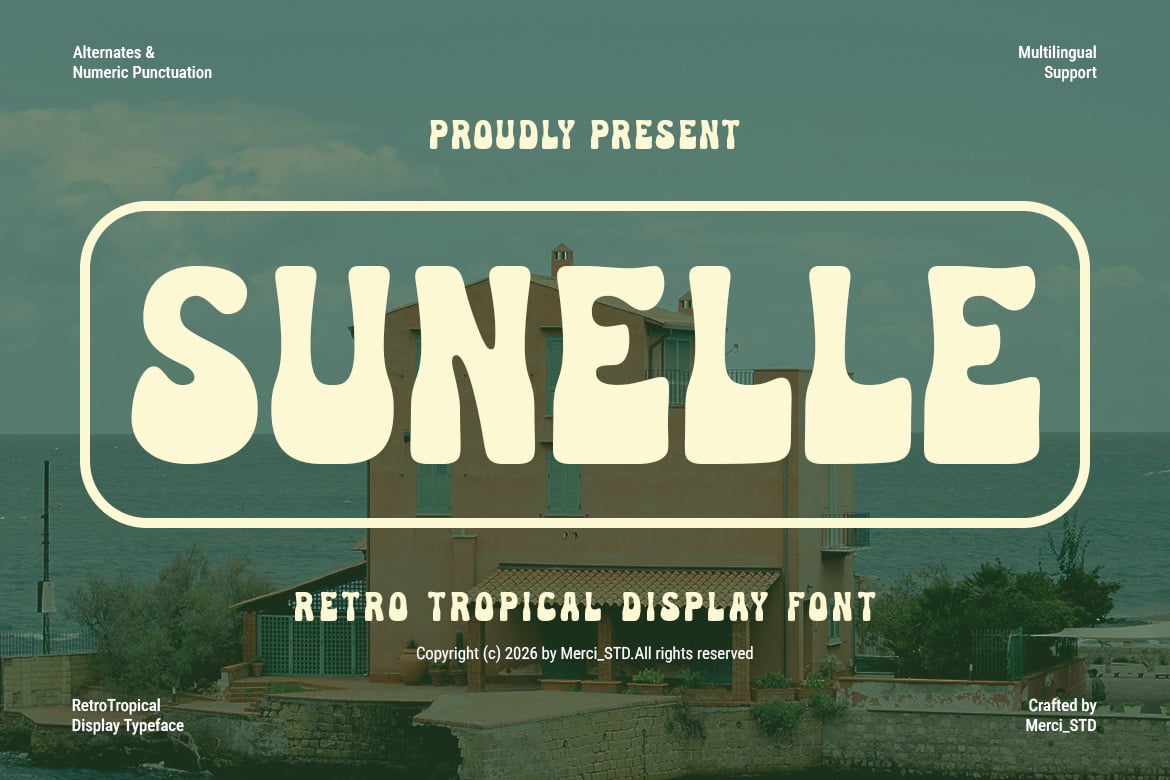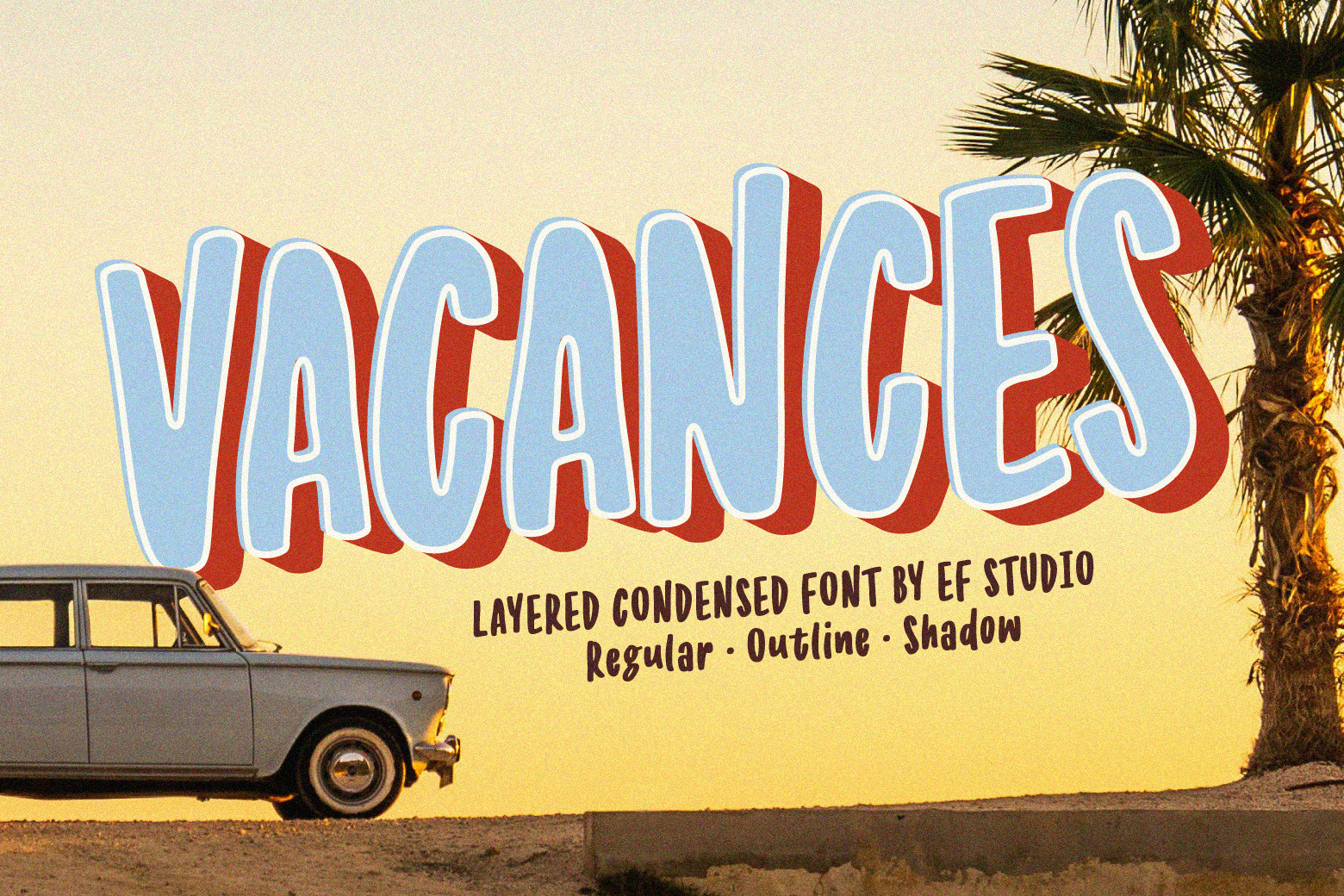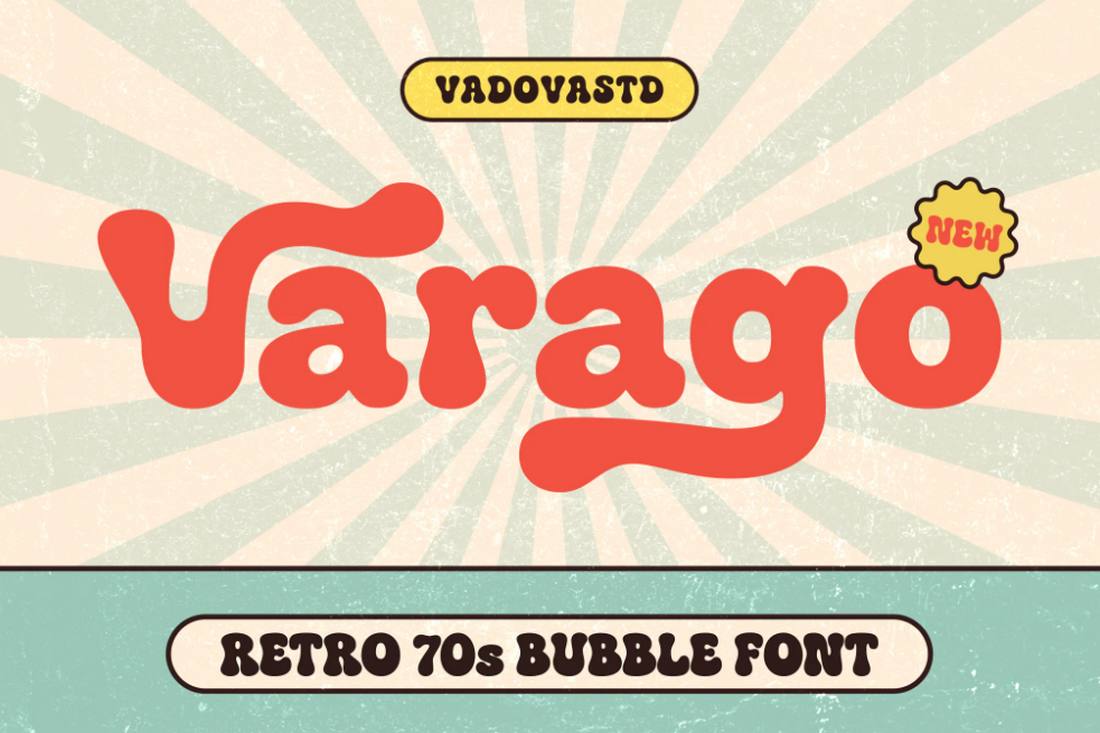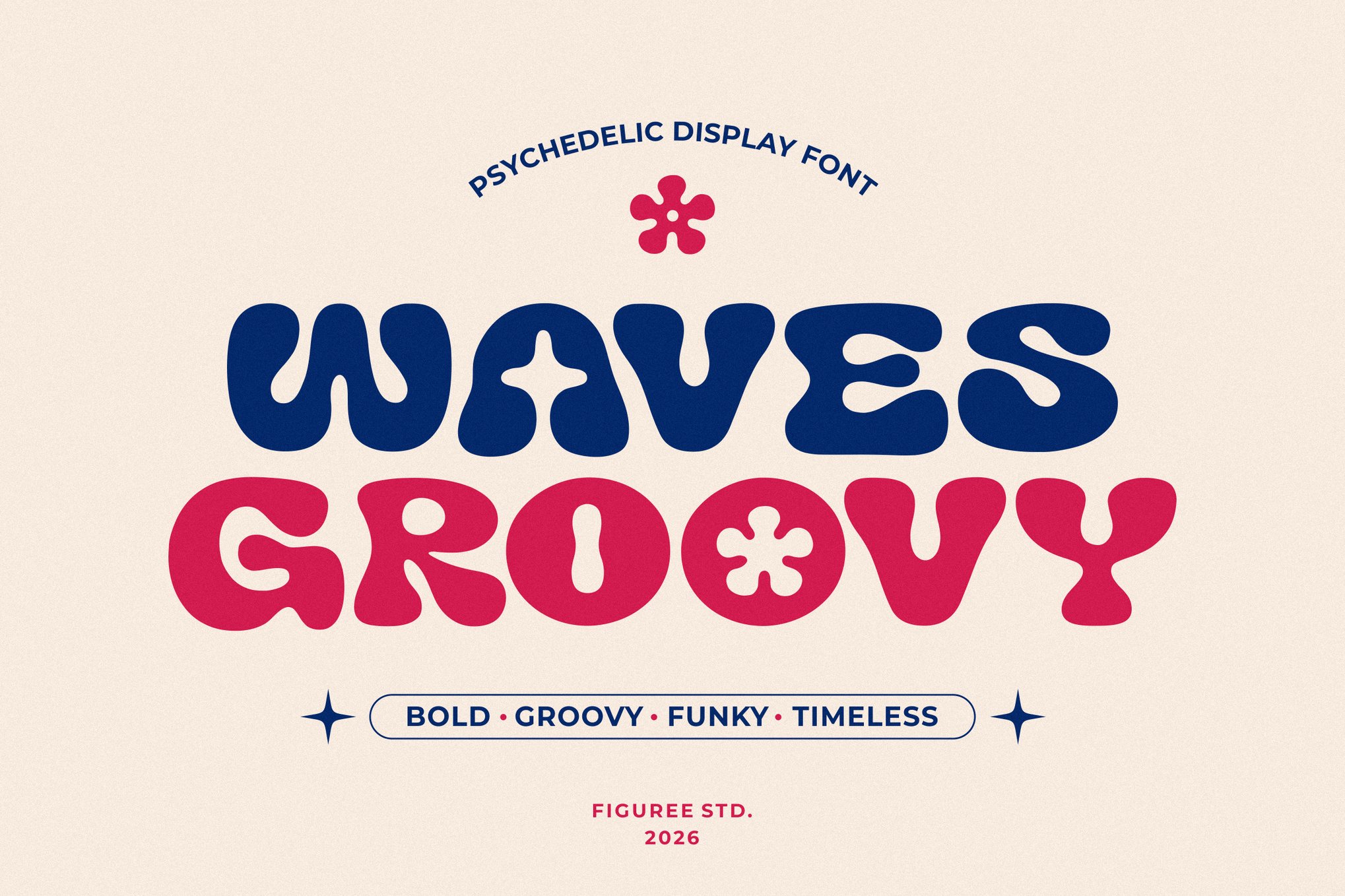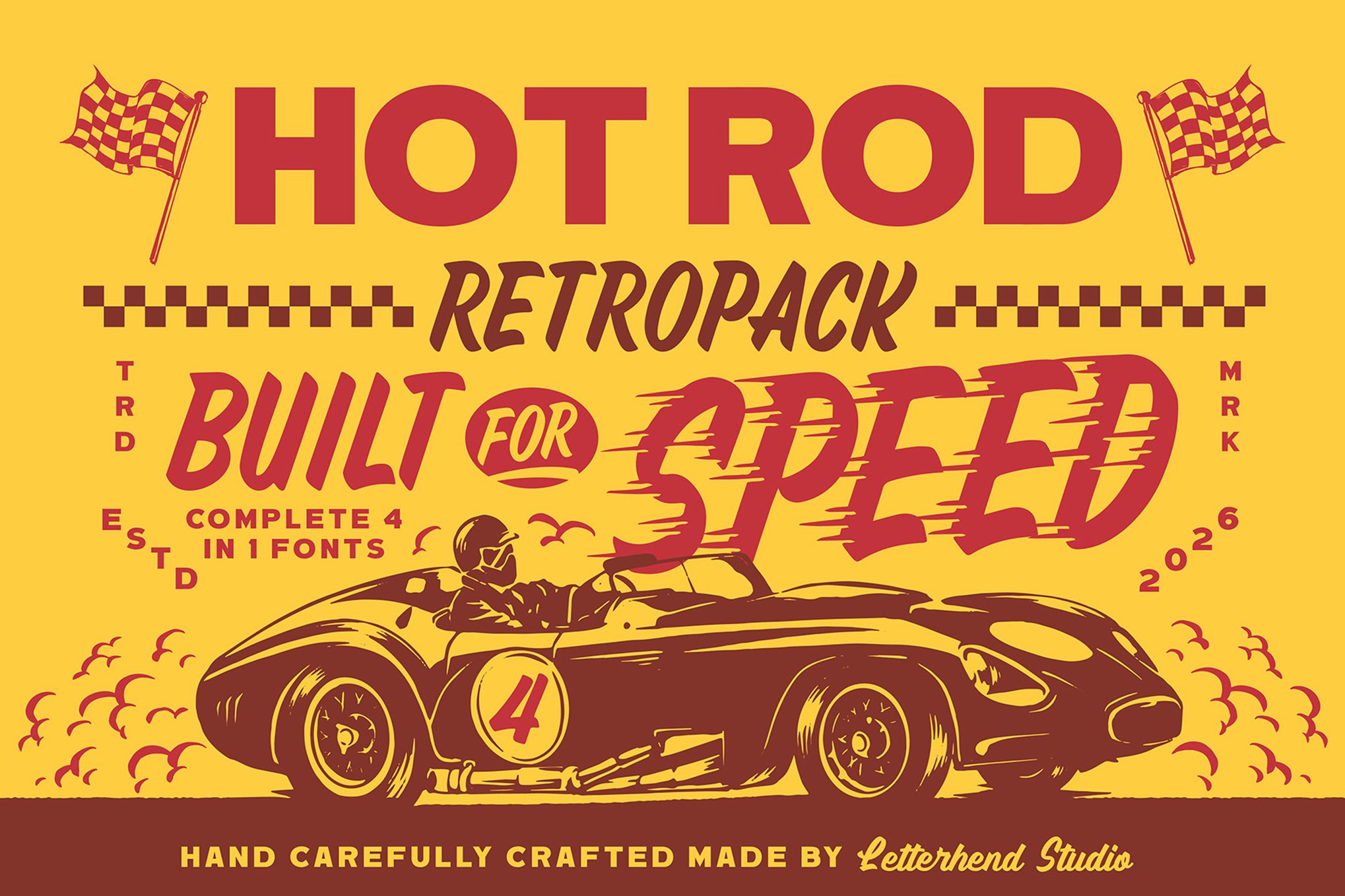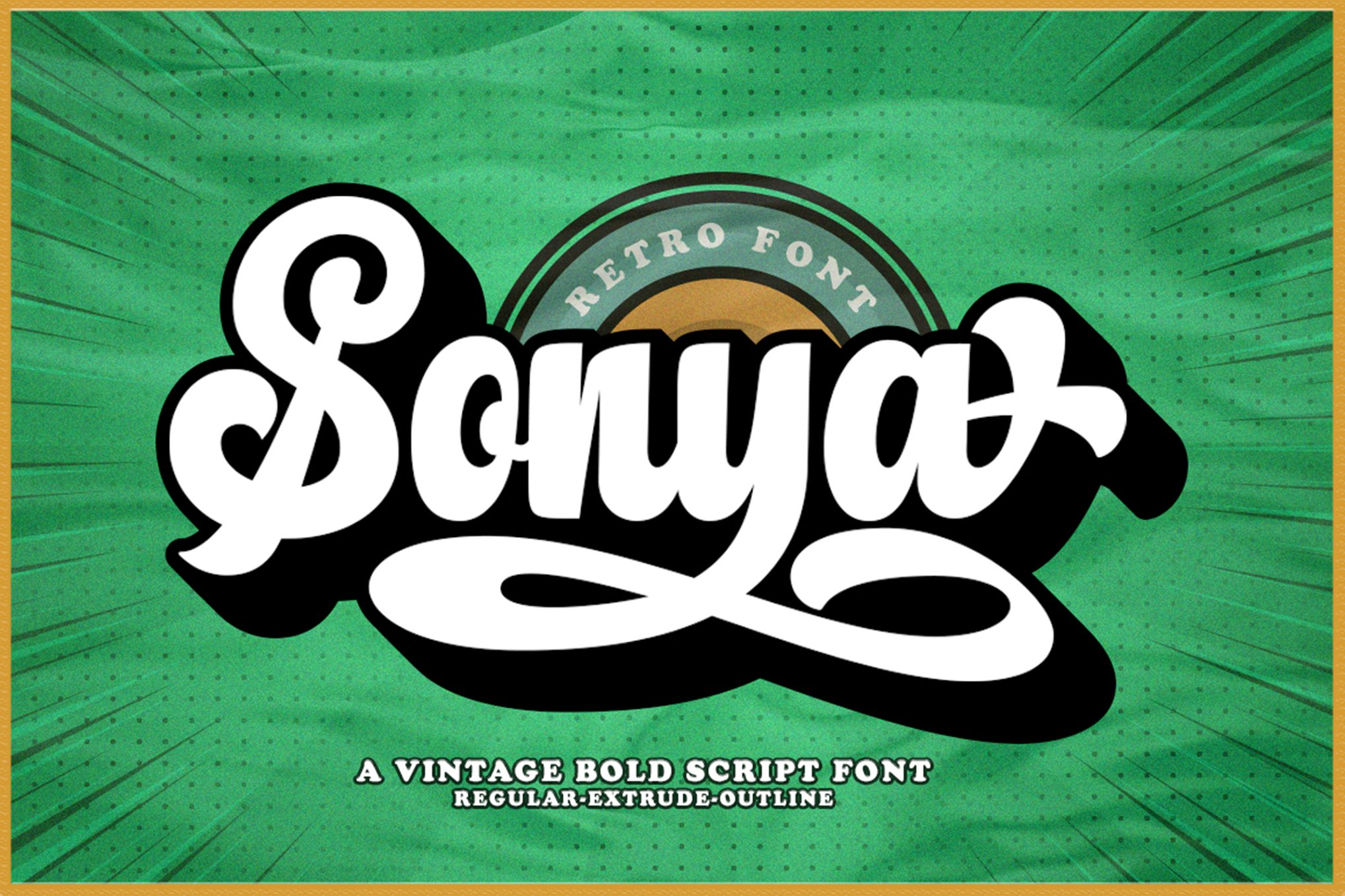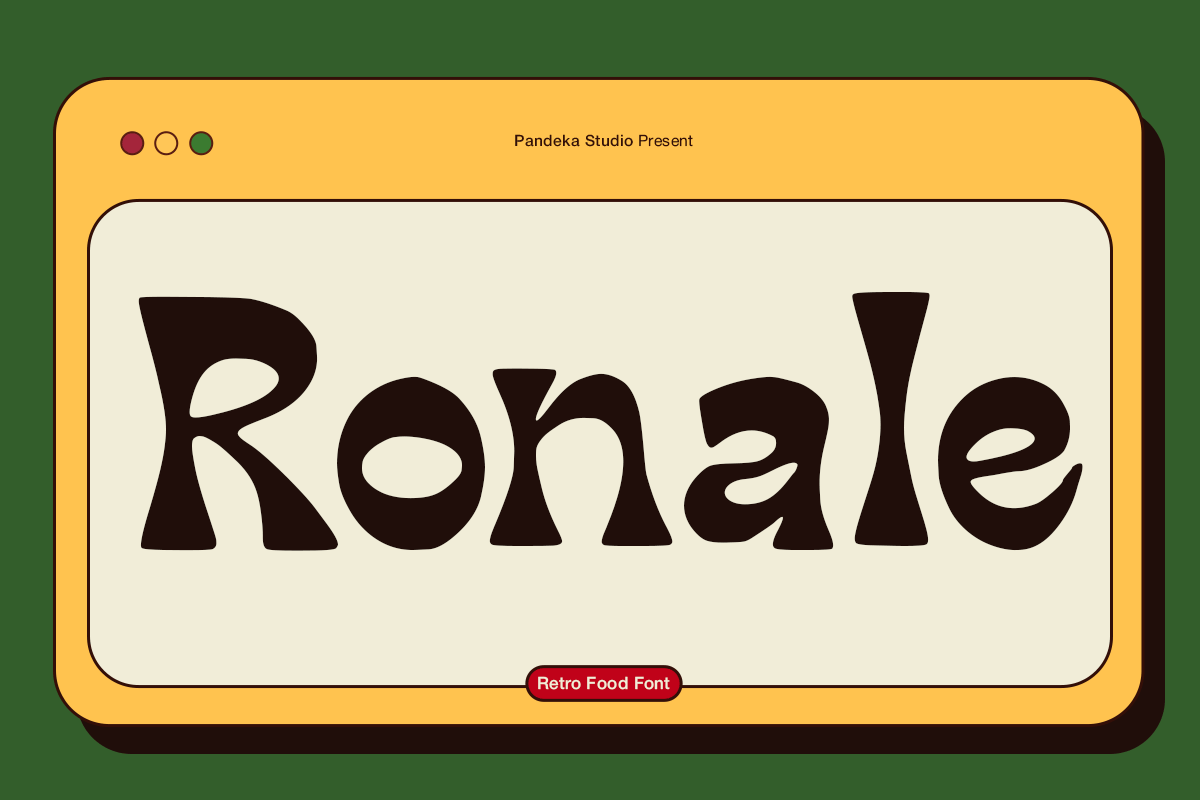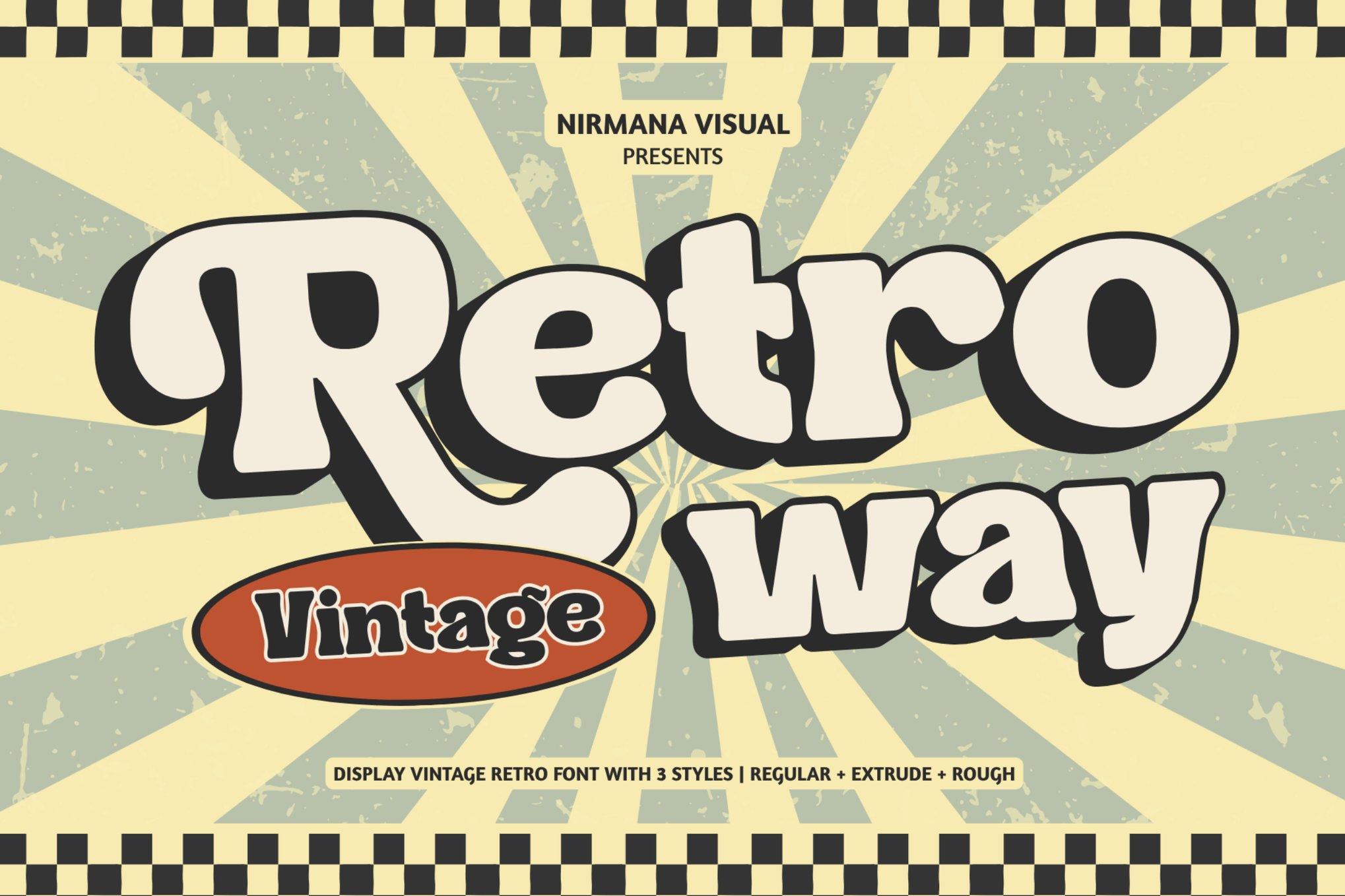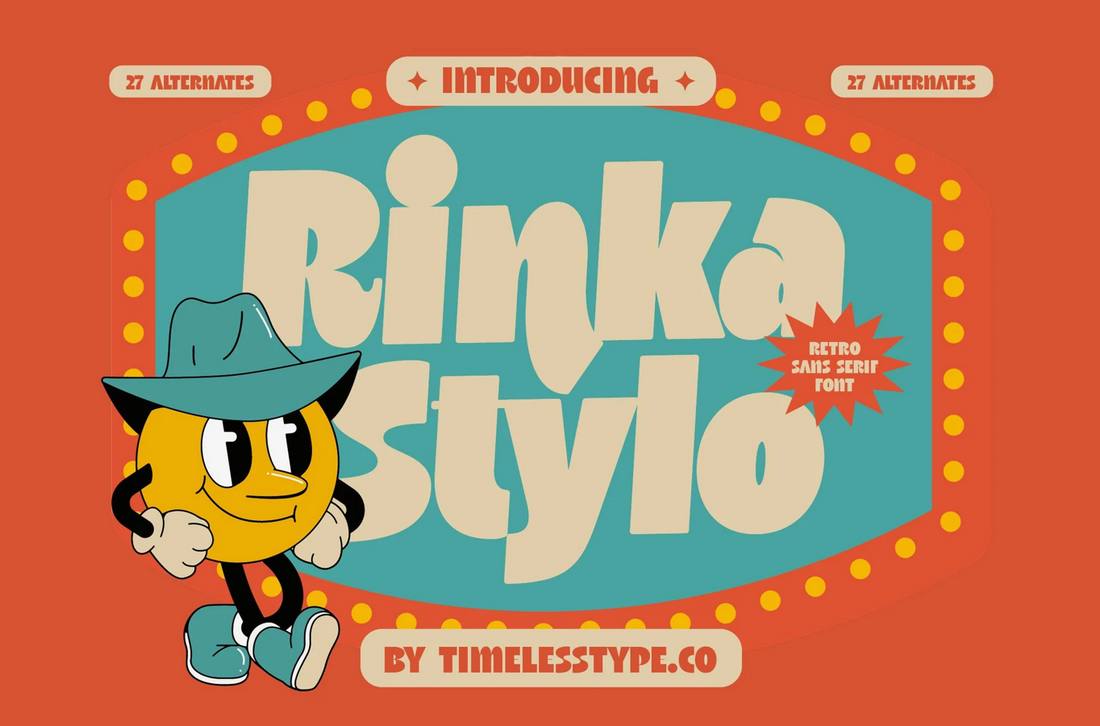
35 Grooviest Retro 80’s Fonts (Classic Retro 80’s Typography)
There’s nothing better than a cool retro font to take you back in time to the 1980s when even the typography looked so cool and groovy.
Today, we take you down that same memory lane filled with nostalgia with our collection of groovy 80s fonts.
Needless to say, an awesome-looking 80s font will fit in with almost any type of design. Whether it’s a logo design for an agency, a custom T-shirt for a creative brand, or even posters for a movie, you can never go wrong with using a retro font.
So be sure to download all these fonts and guard them as your most precious treasure as a designer. Of course, there are a few free 80s fonts in the collection too.
Sunelle – Retro Tropical 80s Font
Sunelle is a vibrant retro tropical font capturing the essence of sun-kissed 80s summers. Ideal for posters, travel promotions, and beach-themed projects, it infuses designs with bold, nostalgic charm. Featuring uppercase letters, numbers, punctuation, and unique ligatures, Sunelle comes in ttf, otf, woff, and woff2 formats.
Vacances – Retro Layered Condensed Font
Vacances is a vibrant retro font inspired by vintage travel posters and seaside signage, perfect for adding a nostalgic flair to your projects. Its unique 3-layer system—Regular, Outline, and Shadow—allows for creative color combinations and eye-catching designs. Ideal for high-impact layouts, Vacances combines rustic charm with sleek professionalism in a condensed, space-saving silhouette.
Varago – Retro 70’s Bubble Font
Varago is a captivating retro 70s bubble font that adds a playful, nostalgic touch to any project. Perfect for posters, logos, or social media graphics, its bold curves and vibrant style transport you back to the groovy era of disco and bell-bottoms. You can elevate your design with Varago’s unique flair, making it an ideal choice for adding character and charm.
Groovy Waves – Psychedelic Retro Font
Groovy Waves brings vibrant 80s energy to your design projects. Its wave-shaped, all-caps design and vintage psychedelic vibes offer eye-catching movement and character. Ideal for posters, album covers, and retro-themed branding, it supports multiple languages and works seamlessly across digital and print formats, enhancing creative displays with its bold, expressive lettering.
Hotrod – Classic 80s Font
Hotrod is a vibrant retro display collection inspired by vintage racing posters and garage signage. Boasting bold strokes and dynamic angles, it evokes the energetic spirit of mid-century automotive culture. Ideal for headlines and large layouts, this font offers versatile styles, multilingual support, and special features like alternates and ligatures.
Sonya – Retro 80s Script Font
Sonya offers a unique, carefully crafted vintage style perfect for logos, titles, and more. With an extruded version and various OpenType features like Stylistic Alternate and Ligature. Compatible with Adobe software and Microsoft Word, Sonya also provides multilingual support for broader accessibility.
Ronale – Retro Food Font
Ronale is a bold, playful retro-style font inspired by vintage diner typography, perfect for adding a nostalgic touch to food branding, cafe logos, and retro-themed projects. Its curvy forms evoke classic restaurant signage warmth, offering a full character set in Regular style. Ronale’s easy-to-use format is compatible with popular design software, making it ideal for creative adventures.
Retro Way – Vintage Logo Font
Retro Way captures the vibrant spirit of the 80s with its retro style, perfect for a range of design projects like logos, branding, social media posts, and more. This creative asset includes two versatile font styles, Regular and Rough, plus an Extrude option, available in OTF, TTF, and WOFF formats.
Rinka Stylo – Retro Sans Serif Font
Rinka Stylo is a charming retro sans serif font that captures the playful spirit of the 80s. It’s perfect for adding a nostalgic touch to your designs, from posters to logos and everything in between. With its clean lines and vintage flair, Rinka Stylo brings a fun and bold aesthetic to your creative projects.
Stacker – Groovy Retro Font
Stacker is a vibrant retro font that brings 80s groove to your designs. Its rounded geometric forms and smooth curves create a friendly, engaging tone, perfect for Instagram layouts, branding, and digital campaigns. With excellent readability and cheerful letter shapes, it elevates headlines and promotional graphics.
Naskle – Groovy Retro 80s Font
This is the perfect font to capture the essence of the 80s. It has the same groovy psychedelic-style typography that was seen all-around back in the day. You would see this type of font in posters, banners, and even on the sides of VW vans. If you want to create that same iconic 80s look in your designs, this font is made for the job.
Ramdone – Retro 80s Script Font
Even though this retro font has a very popular design style used in the 80s, the font comes with some modern OpenType elements such as swashes, alternate characters, and much more. With this font, you can design unique retro-style labels for drink bottles, design posters, craft logos for brands, and everything in between.
Neoncity – Signature Retro Neon Font
When talking about the 80s, we can’t forget about the bright neon signs. The colorful neon designs from the late 80s managed to survive all the way through the 90s and we can see them even today. With this cool font, you can create beautiful typography with the same neon sign look and feel. It comes in both script and regular styles of fonts.
Sojourn – 1980s Retro Serif Font
Sojourn is a serif font that comes with a classic retro design inspired by the typography from the 1980s. You can use the font to give a modern-vintage look to your marketing materials such as posters, flyers, social media posts, and more.
Retrips – Bold Retro 80s Font
Retrips is a classic retro font that mixes a few vintage typography design elements to create a unique look. It’s simply made for designing retro-style product labels and packaging designs. But it’s suitable for many other styles of branding designs as well. The font comes bundled with lots of ligatures and alternate characters too.
Fenway – 80s Retro Logo Font
Fenway is a bold retro font that’s inspired by the luxury and rich culture of the 80s. It has an elegant design that will fit in nicely with classic brands that promote high-end products, especially for crafting logos. The clean script design of the characters is quite exceptional as well. The font also includes ligatures and Web Font versions.
Senalita – Free 80s Retro Font
Senalita is a beautiful geometric font with a retro letter design. It may be hard to believe, but this font is actually free to use. You can use it with your personal projects as well as client commercial projects, at no charge.
Rahovets – Free Retro 80s Font
If you want to mix things up with some groovy retro typography in your designs, save this font to your collection. It comes with a wild letter design with thick and wide characters. You can also use it for free for personal and commercial projects.
Mintage – Modern Retro Font
This retro font features a stylish and modern design that makes it a great choice for crafting branding designs for various types of businesses. It comes with letters that feature curvy tails and swashes. The font fits in nicely with fashion and apparel brands. And it includes loads of alternate characters and ligatures to choose from.
Shinelof – Psychedelic Retro 80s Font
This font seems to perfectly capture the era of psychedelic experimentations of the 80s. It features a wild letter design that actually fits in well with many different types of branding designs. The font includes both uppercase and lowercase letters along with 20 types of ligatures and over 40 alternate characters.
Midway – 80s Style Retro Script Font
Midway is a beautiful retro script font that features the same groovy and thick letter designs you’ve seen in classic 80s signage and billboards. It’s perfect for creating labels, badges, and logos for various brands. The font comes in regular and extrude styles. And it features all-caps letters with over 300 glyphs and 80 alternate characters.
The Bayland – Retro-Vintage Font
Another bold and creative retro font that shares elements from vintage designs. This font will work best for crafting product labels that represent both retro and vintage eras. This font also includes both regular and extrude versions, that can be used to create amazing logos and badges when combined.
Gading Retro – 80s Cursive Font
This retro 80s font features a stylish cursive letter design. It comes loaded with plenty of glyphs, ligatures, and alternates. The font is perfect for everything from logo design to labels, banners, T-shirts, and various other branding designs.
Palm Tree – Free Retro 80s Font
This bold and beautiful retro 80s font is also free to download. It comes with an elegant letter design that fits in well with almost any type of retro-themed design. You can use it for free with personal projects.
Quechely – Free Retro Vintage Font
This free retro font takes inspiration from the vintage label and signage designs to create a classic look for its letters. The font comes in regular, outline, and shadow styles. It’s free to use with personal projects.
Retrolight – Retro 80s Neon Font
With this font, you can create titles, headings, and typography with glowing neon lights. It features the same style of typography design you’d see in movies from the 80s. And the font includes lots of glyphs for you to experiment with unique styles of designs as well.
Retro 80s Signature Font
This font also features a retro neon-style design but it combines the style with a signature letter design. The font has a beautifully flowing design that will look amazing for business cards, letterheads, and many other personal branding designs. The font comes with a few unique ligatures as well.
Bald Mont – Retro 80s Cursive Font
This is a beautiful cursive font with a groovy retro design. It has bold letters with a creative design, unlike most other retro fonts. This makes it a great choice for designing logos and badges for various brands. It’s suitable for product packaging, labels, posters, and flyer designs as well.
Heidenberg – Retro Script Font
Heidenberg is a retro script font that has a certain elegant look to it. The font includes many different styles of alternate characters and swashes that you can mix and match to create unique designs of your own. It includes multilingual support too.
Clarinet – Retro 80s Font
Clarinet is a retro font that shares design elements from the 80s as well as the 60s. It has retro serif letters with a bit of vintage style. If you want to design unique logos with a bit of personality, this font is perfect for the task. There are lots of ligatures and stylistic alternates included in this font.
Retrolife – Free 80s Retro Font
Retrolife is a cool retro font that comes with some modern design elements. It’s suitable for product packaging and label designs for various food and lifestyle brands. The font is free to use with personal projects.
Stay Retro – Free 80s Font
This font has a bold script-style letter design that has a classic 80s look and feel. The font is perfect for all kinds of branding designs. And you can use it for free to create personal projects and portfolio items.
Cybersky – Cool Retro Futuristic Font
Cybersky is a retro-futuristic font that features a set of all-caps letters with the 80s techno style of designs. The font is ideal for gaming, DJ, techno music, and many other types of groovy designs.
Retrohols – Retro 80s Condensed Font
This retro font features a very uncommon yet cool design that will surely make your designs look a bit different. It includes tall and narrow letters with 80s style designs. You can craft trendy poster titles, website headers, product labels, and much more using this font.
Fast Rewind – Retro 80s Brush Font
Fast Rewind is a brush-style script font with a letter design inspired by typography from the 80s. It’s ideal for designing text with a hand-crafted look. The font will especially work well for personal branding designs such as business cards and portfolio items.
Shock Block – 80s Retro Neon Horror Font
Grab this font if you want to design titles with 80s style horror-themed typography. It’s an all-caps font that has a wild design. The font comes with alternate characters and lots of cool lightning bolt symbols.